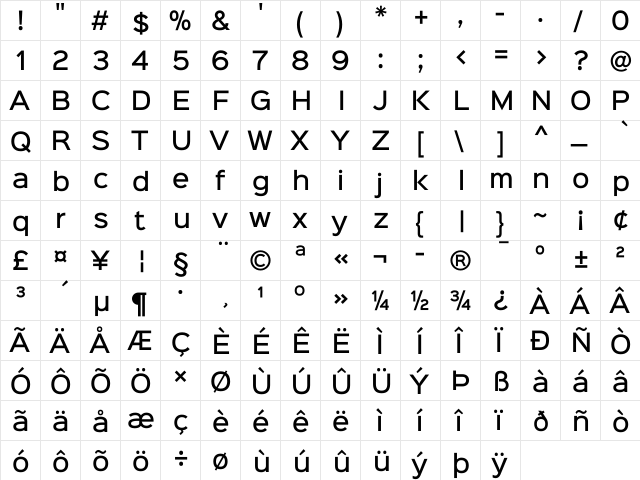
Sinkin Sans 500 Medium 500 Medium
| Foundry | K-Type |
| Designer | Keith Bates |
| Copyright | Sinkin Sans 500 Medium by Keith Bates 014 https://www.k-type.com Sinkin Sans is a simple, pleasantly proportioned sans serif with tiny, inconspicuous notches that sink into vertical strokes adding highlights to congested corners. |
Design Context for Sinkin Sans 500 Medium Typeface
Sinkin Sans 500 Medium is a composed and adaptable typeface that performs quietly and consistently across a wide range of design contexts.